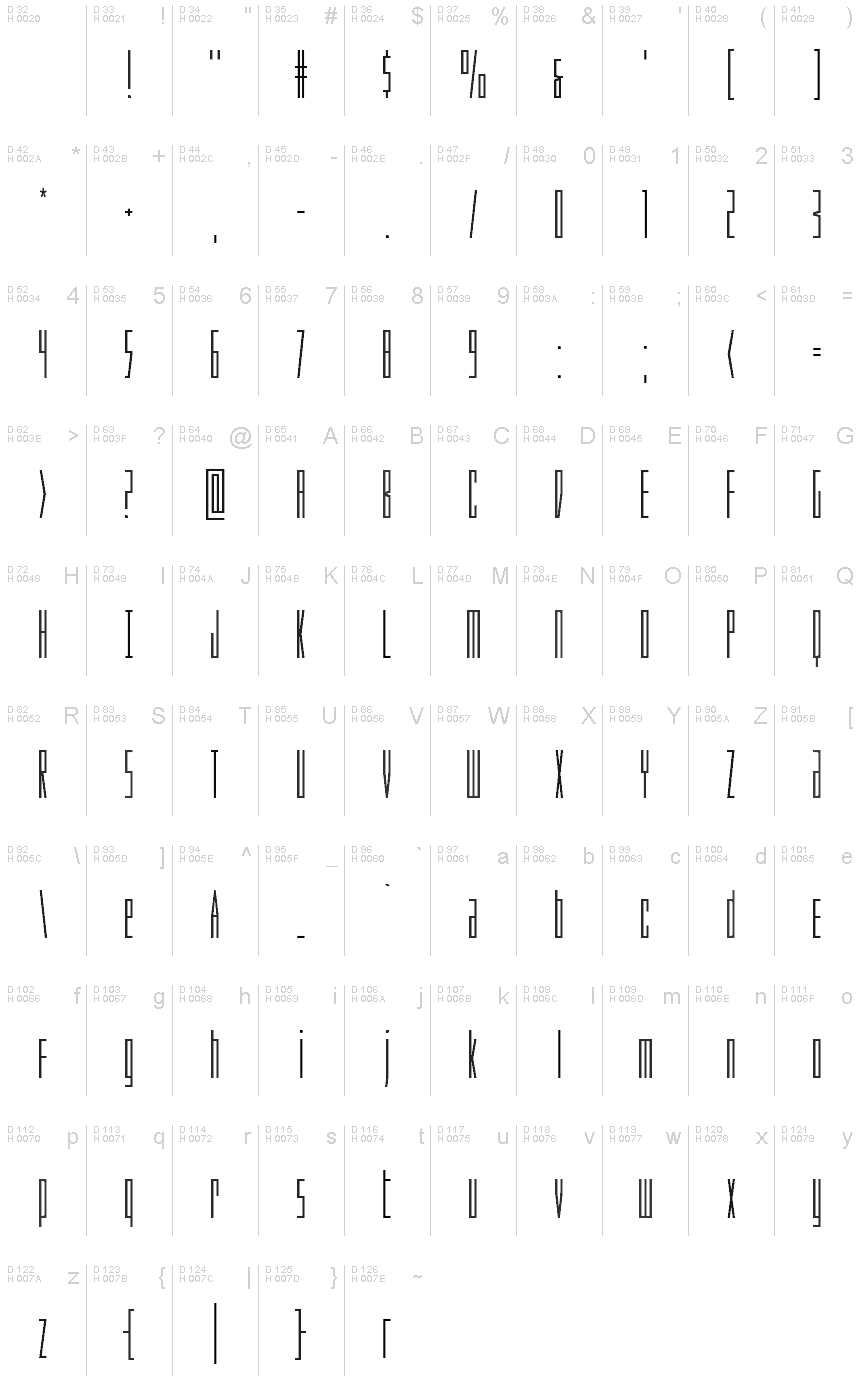
Phantacon Compact
Phantacon Compact emerges from the creative mind of Daniel Zadorozny, offering a striking addition to the Phantacon font family. This display font boasts an ultra-condensed width paired with an extra-light weight, creating a sleek and modern aesthetic. Its techno style exudes a futuristic vibe that is both clean and eye-catching.
Crafted with precision, Phantacon Compact's distinct characters make it an excellent choice for designers looking to inject a touch of sophistication into branding, high-tech contexts, or any project requiring a contemporary flair. The font's streamlined letterforms are designed for maximum impact in minimal space, making it especially suitable for headlines, logos, and any visual composition where space is at a premium.
Embrace the minimalist elegance of Phantacon Compact to elevate your creative endeavors with its singular charm and potential versatility.